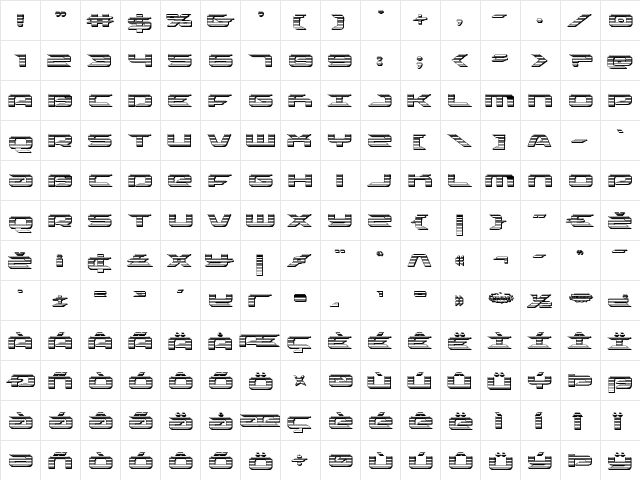
Drive Chrome Regular Font Preview
Drive Chrome Regular
Design Context for Drive Chrome Typeface
Drive Chrome is a composed and adaptable typeface that performs quietly and consistently across a wide range of design contexts.